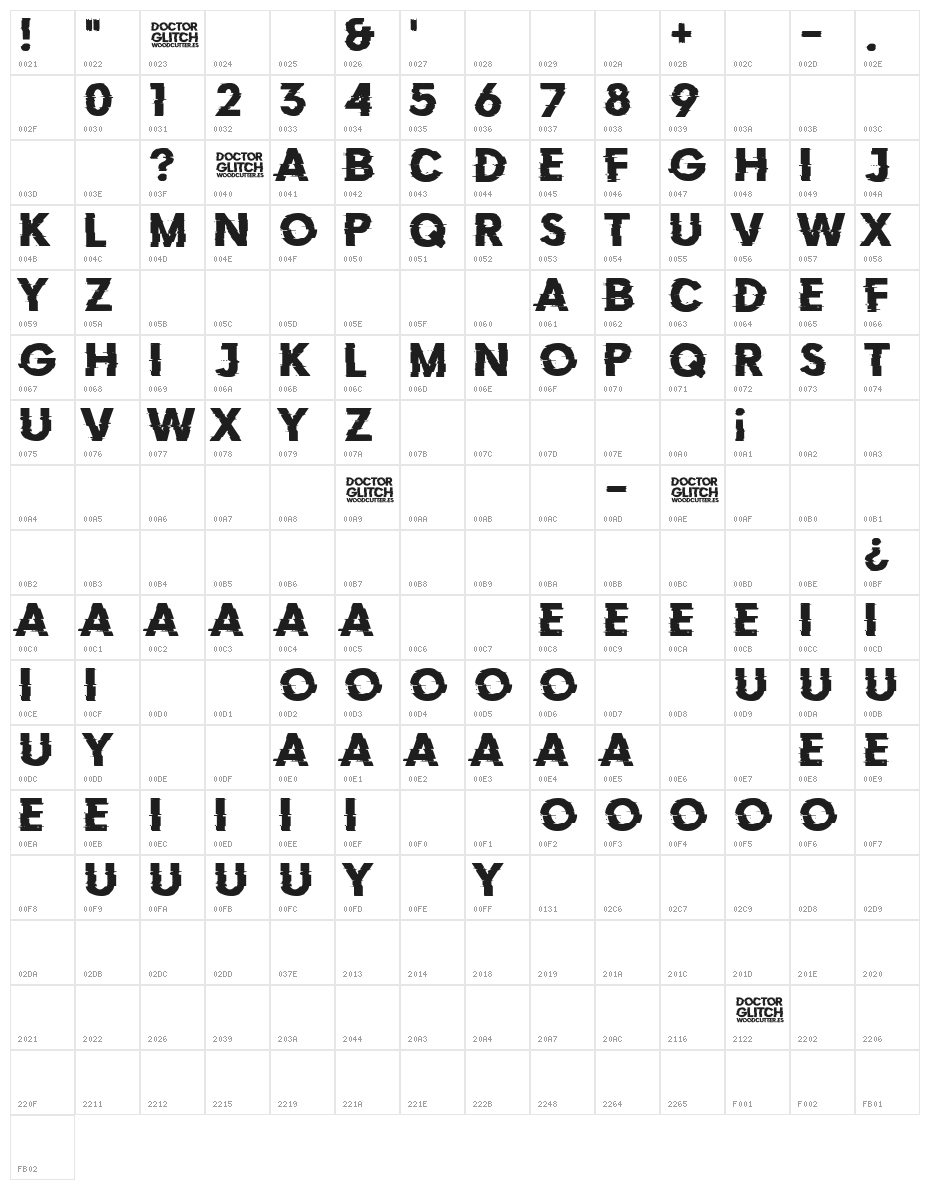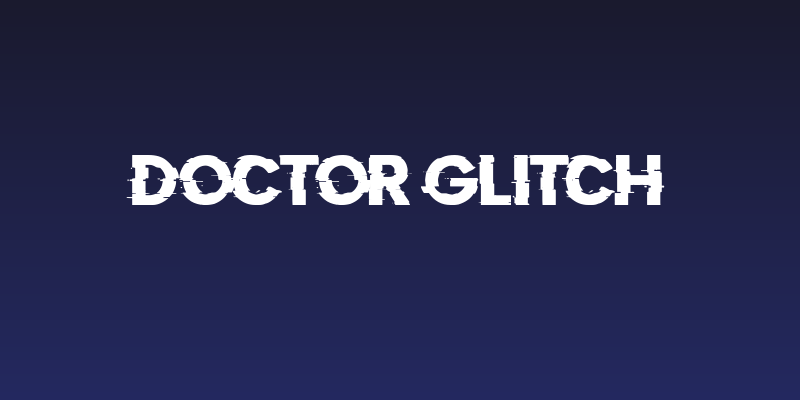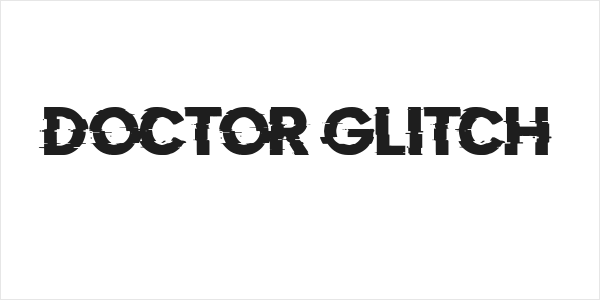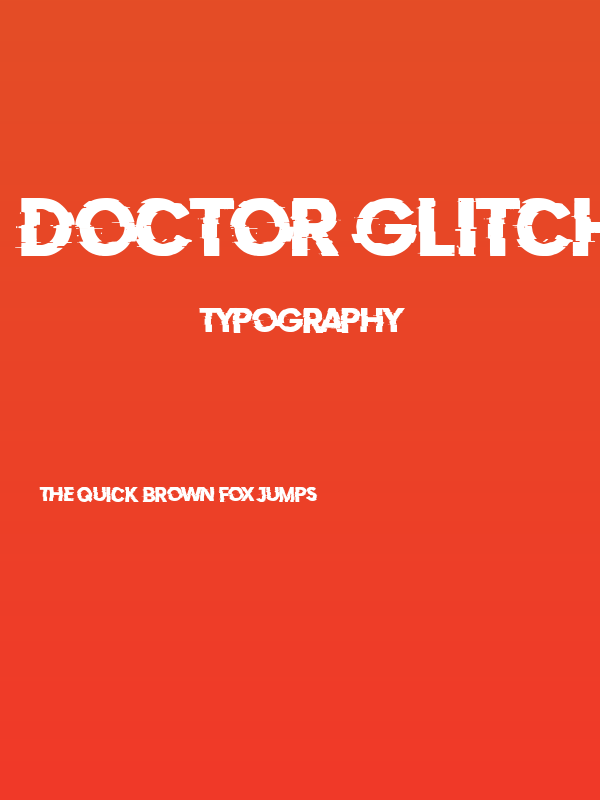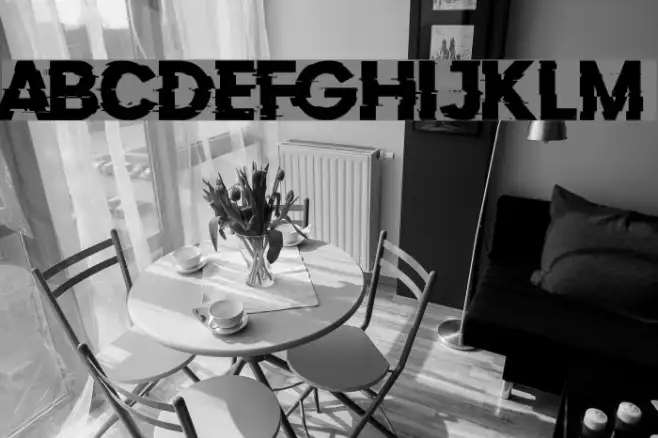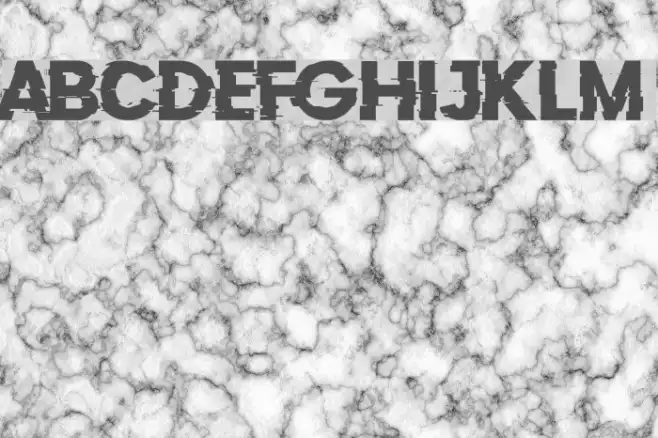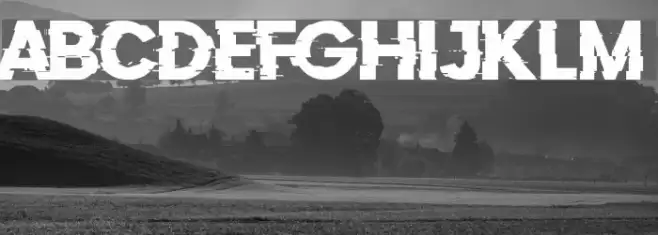
Doctor Glitch Font
Doctor Glitch Description
This font features a bold, distressed style with a glitch effect that disrupts the continuity of each character. The letters are capitalized and display a digital distortion, reminiscent of a corrupted digital signal or a malfunctioning screen. The design is striking and modern, with a unique aesthetic that captures attention. The numerals and special characters follow the same glitch pattern, maintaining consistency across the font. This style is particularly effective for projects that require a futuristic or edgy look, such as tech-themed designs or creative digital art.
| Use Case | Headlines, Logos, Digital Art |
| Proposed Projects | Ideal for tech-themed designs, digital art, video game graphics, and edgy branding projects. |